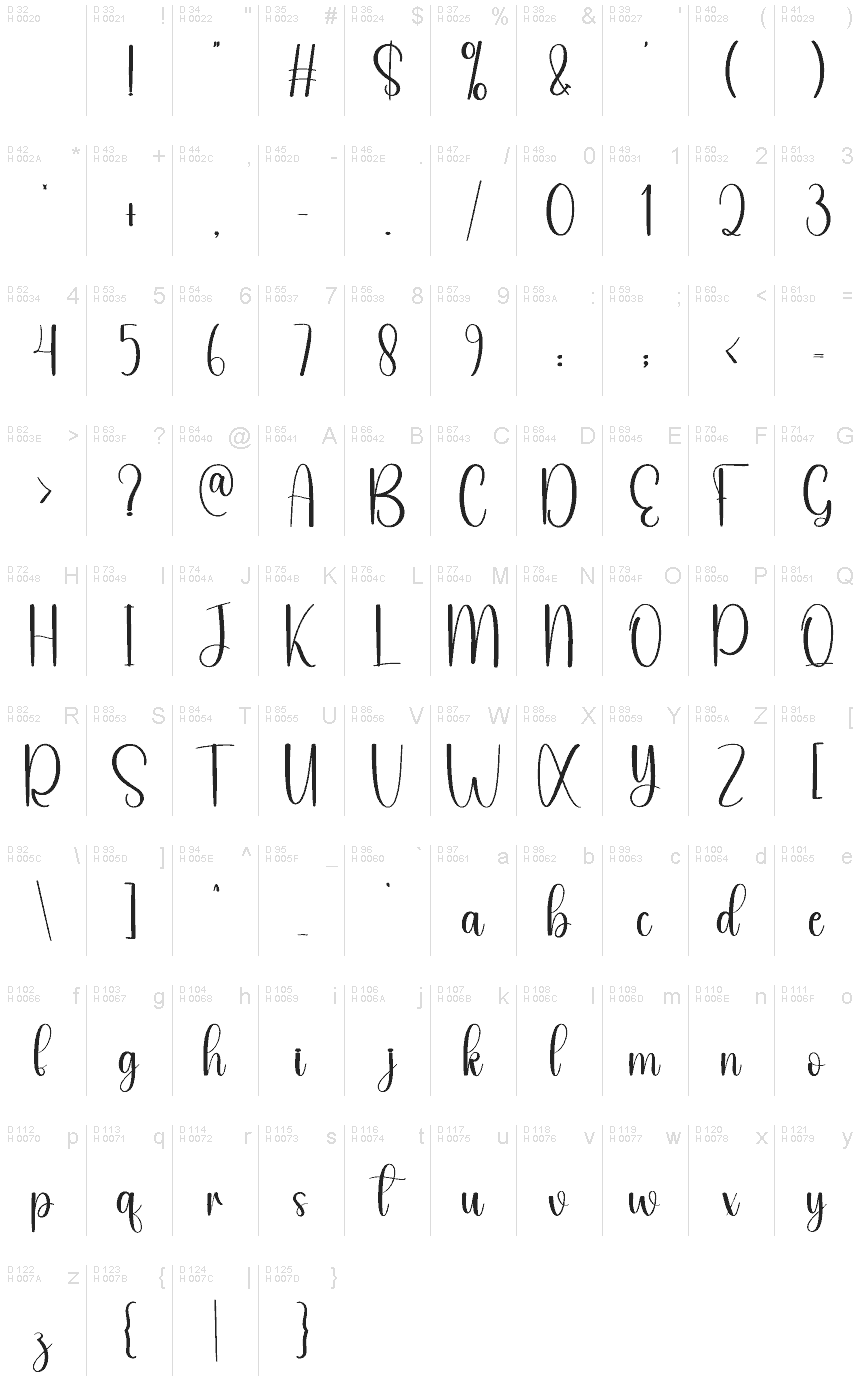
Thick Milk
Thick Milk font designed by Andi Moz is a modern, flowing, condensed script style with an elegant handwritten feel. The free handwritten font has organic imperfections and sophisticated touches that make it suitable for different design purposes that are meant to portray authenticity and luxury.